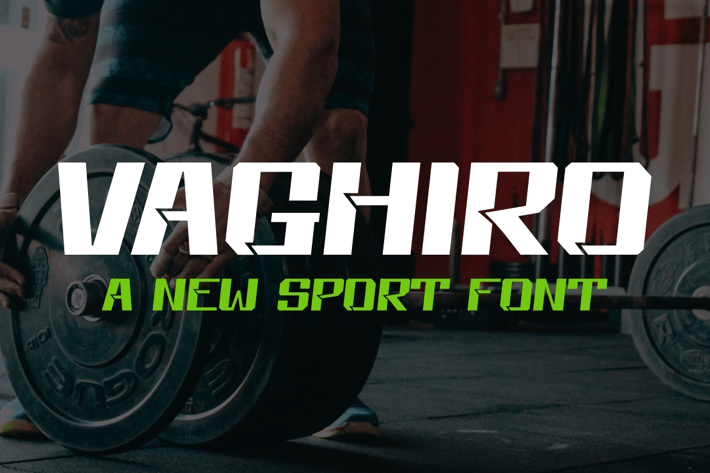
Vaghiro - Gym & Sport Font
Vaghiro - Gym & Sport Font Font is unique . Ready to use for your design like labeling, movie sceen, poster, movie title, gigs, album covers, logos, and much more.